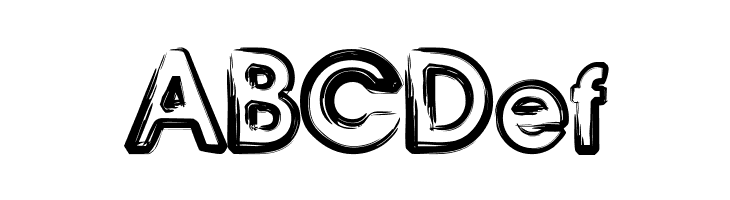
Lightsider 3D Regular Font
- Font: Lightsider 3D Regular
( Fonts by pOPdOG fONTS - Dimitris Kolyris - popdog_fonts.tripod.com Commercial Fonts Font )
A bold, three-dimensional font with a playful and dynamic style.